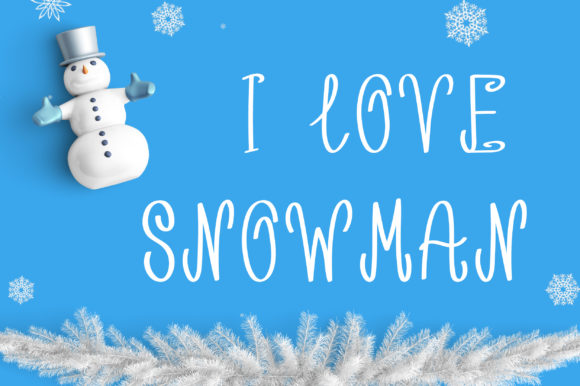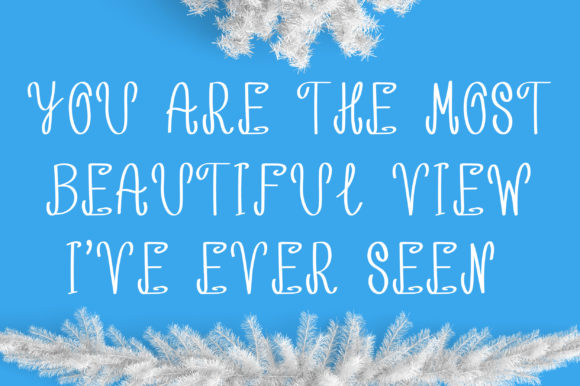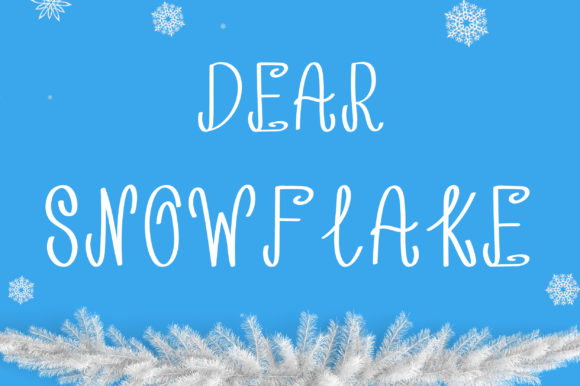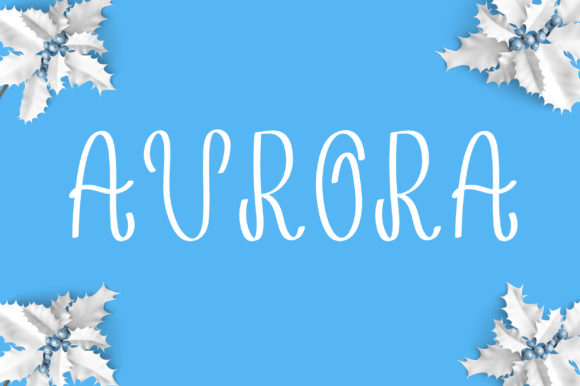
Introducing Alaska Font: Elevate Your Designs to New Heights
Are you tired of using the same old fonts in your designs? Look no further than Alaska Font, a cheerful display font that’s sure to take your projects to the next level. Whether you’re working on branding, headings, wedding designs, invitations, signatures, logos, labels, or any other type of design, Alaska Font is the perfect choice.
What is Alaska Font?
Alaska Font is a unique and playful display font that’s designed to add a touch of personality to your designs. Its cheerful and upbeat vibe makes it perfect for a wide range of projects, from fun and casual to formal and sophisticated. With its clean and crisp lines, Alaska Font is sure to make a statement and leave a lasting impression.
Key Features of Alaska Font
• Versatility: Alaska Font is incredibly versatile and can be used for a wide range of design projects, including branding, headings, wedding designs, invitations, signatures, logos, labels, and more.
• Cheerful and Upbeat: Alaska Font has a cheerful and upbeat vibe that’s sure to add a touch of personality to your designs.
• Clean and Crisp Lines: Alaska Font features clean and crisp lines that make it perfect for both digital and print designs.
• Elegant and Sophisticated: Despite its playful nature, Alaska Font is also elegant and sophisticated, making it perfect for formal and high-end designs.
Why Choose Alaska Font?
There are many fonts to choose from, but Alaska Font stands out from the crowd for several reasons:
• Unique and Playful: Alaska Font is a unique and playful font that’s sure to add a touch of personality to your designs.
• High-Quality: Alaska Font is a high-quality font that’s designed to look great in both digital and print formats.
• Easy to Read: Despite its playful nature, Alaska Font is easy to read and can be used for both headings and body text.
• Versatile: Alaska Font is incredibly versatile and can be used for a wide range of design projects.
Font Name Alaska Font
Author PearlyDaisy
In conclusion, Alaska Font is a cheerful display font that’s sure to elevate your designs to new heights. With its unique and playful vibe, clean and crisp lines, and versatility, Alaska Font is the perfect choice for designers and crafters looking to add a touch of personality to their projects. Whether you’re working on branding, headings, wedding designs, invitations, signatures, logos, labels, or any other type of design, Alaska Font is sure to make a statement and leave a lasting impression.